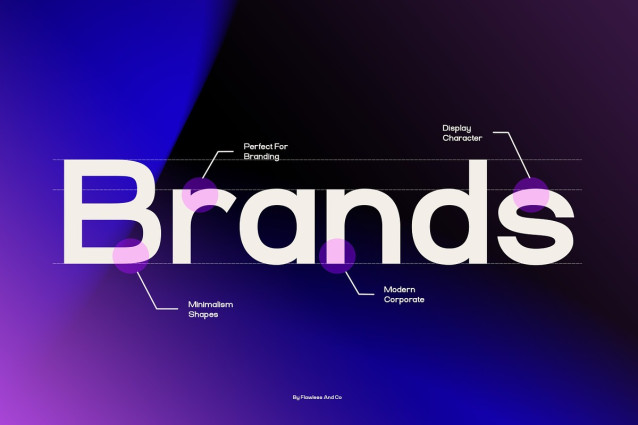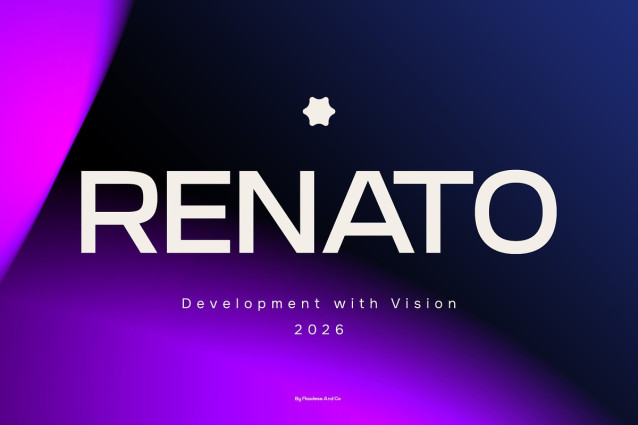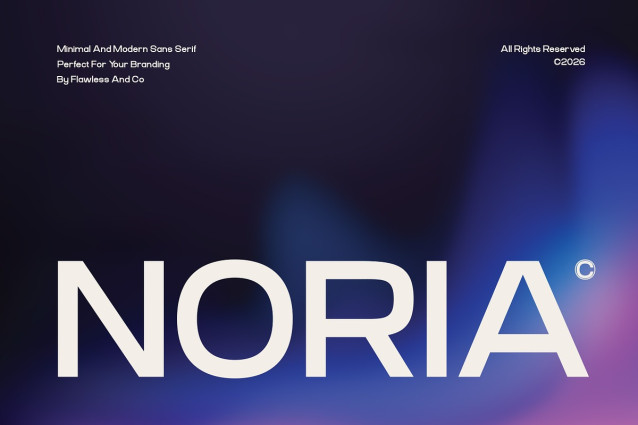
Noria Font
Noria Font is a minimalism and modern sans serif font crafted with clean lines and refined simplicity, making it perfect for branding projects. Its well-balanced letterforms and readable structure create a professional and contemporary look that feels both timeless and highly versatile. Designed to communicate clarity and confidence, Noria allows your brand identity to stand out with a strong yet subtle presence.